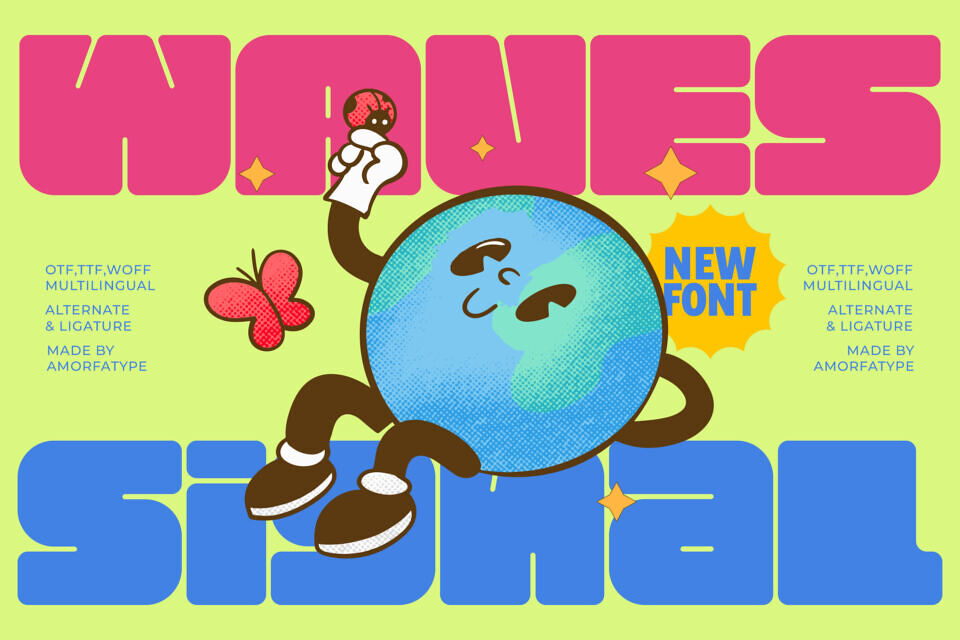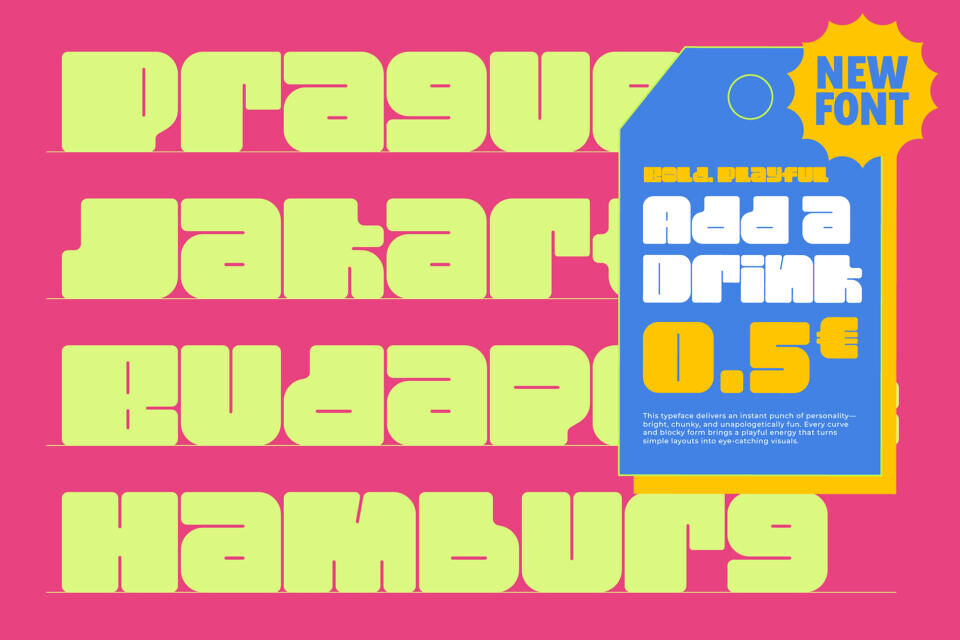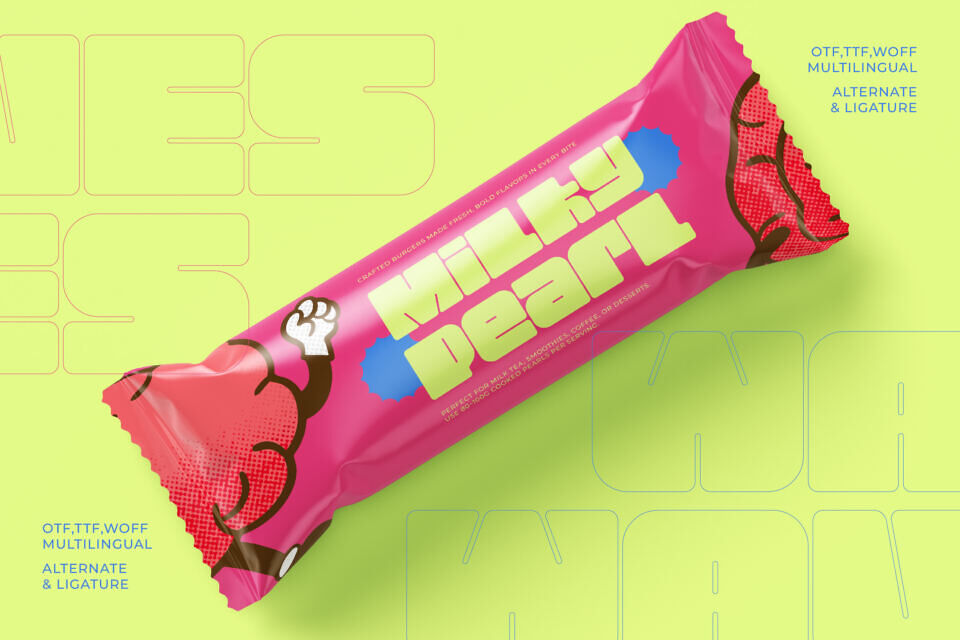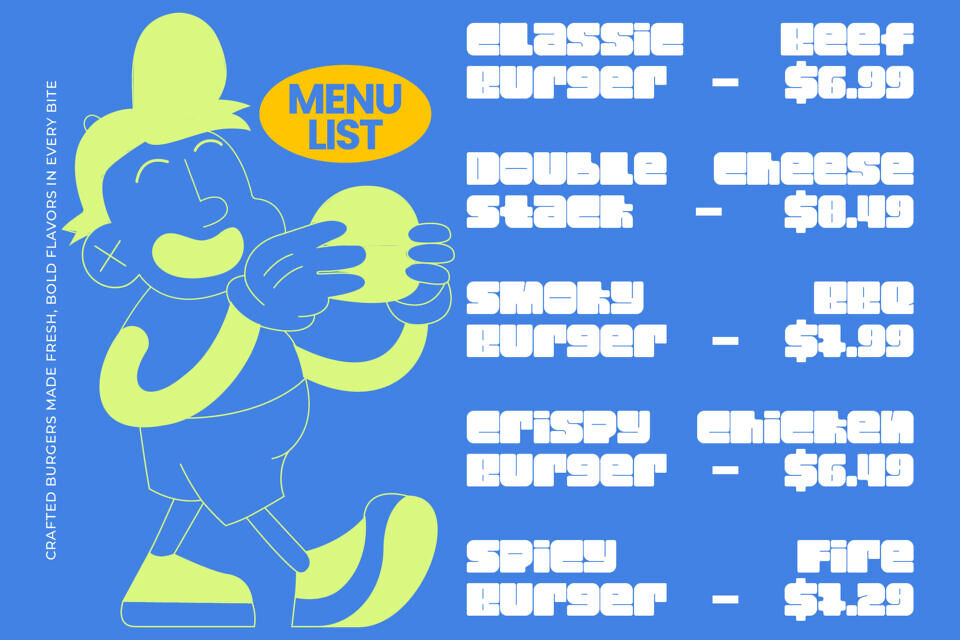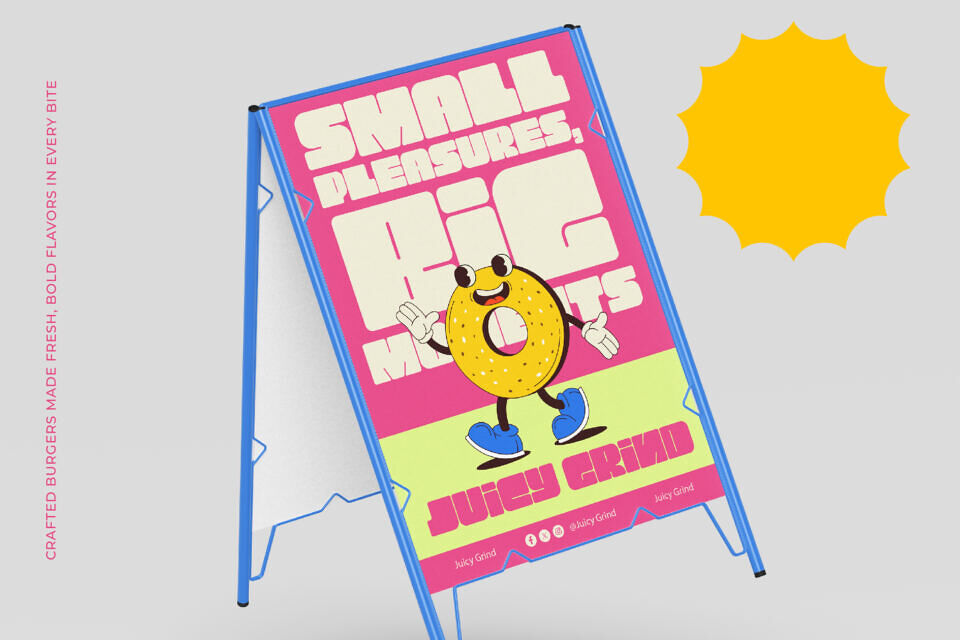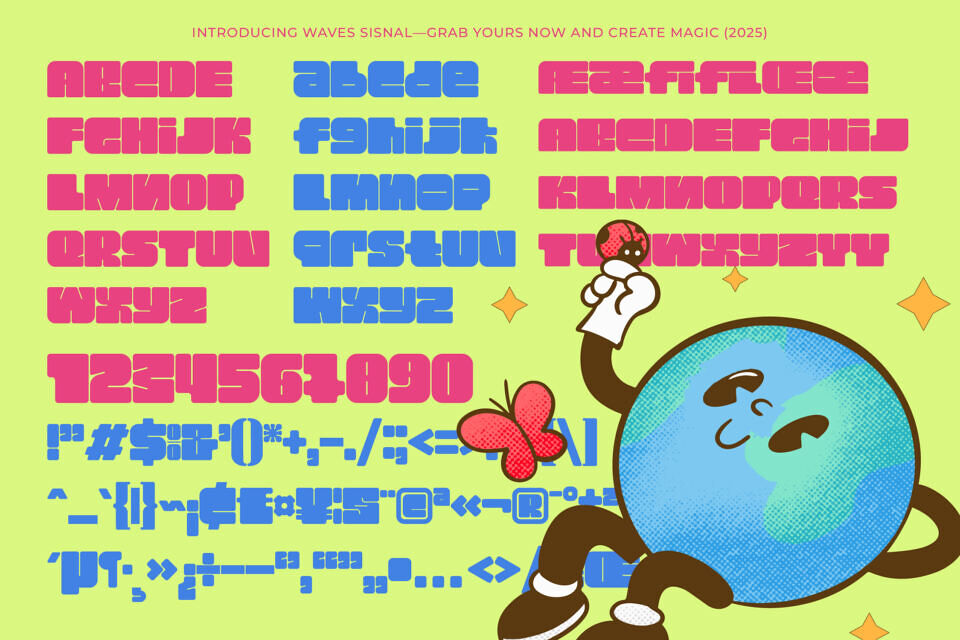
Waves Signal Font
Waves Signal is a bold modern display font crafted to deliver strong visual impact and contemporary style. With solid shapes, confident curves, and sharp detailing, Waves Signal brings a powerful and energetic presence to any design. Its clean construction and striking proportions create a futuristic yet highly readable look, perfect for dynamic and attention-grabbing typography.
Ideal for modern branding, large posters, magazine covers, product packaging, website headers, and bold display headlines, Waves Signal offers stability, clarity, and unmistakable character. Whether you’re building a standout logo, a bold title design, or impactful promotional visuals, Waves Signal delivers strength, style, and modern sophistication.